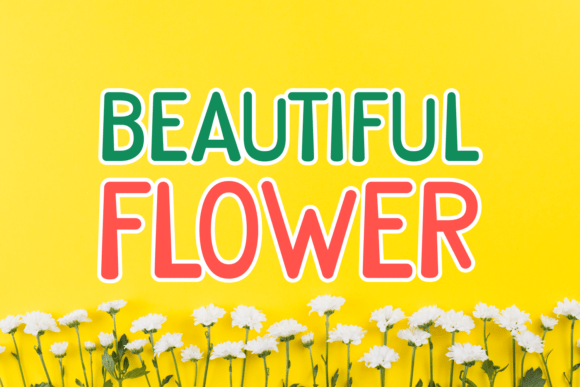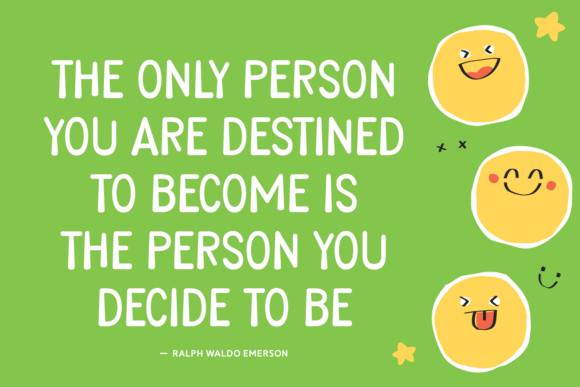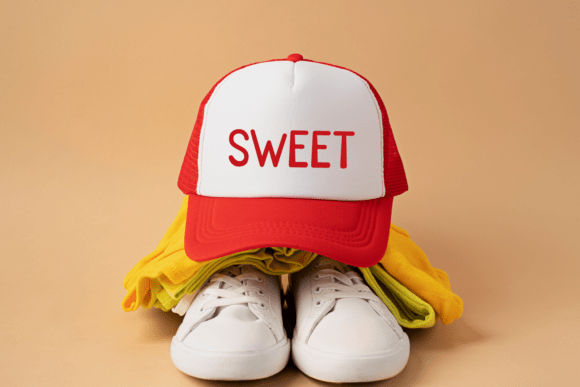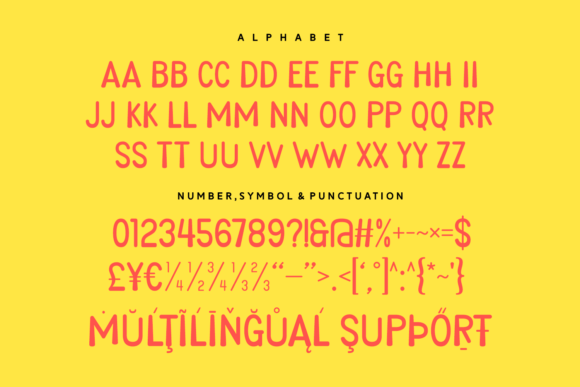
Introduction to Latest Release Font
As a designer, you know that sometimes the perfect font can make or break a project. You’re staring at a blank canvas, trying to bring your creative vision to life, and suddenly, the right font pops into your head. For many of us, that moment of epiphany is all it takes to spark a new idea. And that’s exactly what the Latest Release Font is all about – unlocking your full potential and unleashing your creativity.
This high-quality font is a game-changer for designers, offering a unique blend of display and craft fonts that will elevate your design resource to new heights. With its natural and distinctive style, the Latest Release Font is the perfect addition to any creative project, from bold logos to intricate typography.
Key Features of Latest Release Font
- High-quality vector design with clear, legible characters for use in creative projects.
- Unique design elements, including a transparent background and subtle texture, for added depth and visual interest.
- Includes a comprehensive character set, including Latin, Cyrillic, and Greek alphabets, making it a versatile design resource.
- Perfect for use in creative projects, including branding, advertising, and editorial design, where a high-quality font is essential.
Honest Review: Latest Release Font
I recently had the chance to try out the Latest Release Font, and I must say it’s been a game-changer for my creative project. The font is a high quality design resource that’s perfect for any professional looking to add some sophistication to their work.
- ✨ The transparent background allows for seamless integration with any design project.
- ✨ The font is incredibly versatile, making it suitable for a wide range of creative projects.
- ⚠️ The font is limited to a single style, which may not be suitable for designers looking for a range of options.
- ⚠️ Some users may find the font too modern or trendy, which may not be suitable for more traditional designs.
Overall, I’m really impressed with the Latest Release Font. It’s a great addition to any designer’s toolkit, and I highly recommend it for any creative project. Just be aware of its limitations and use it accordingly.
The Latest Release Font is ideal for various creative projects, including:
- Infographics and presentations